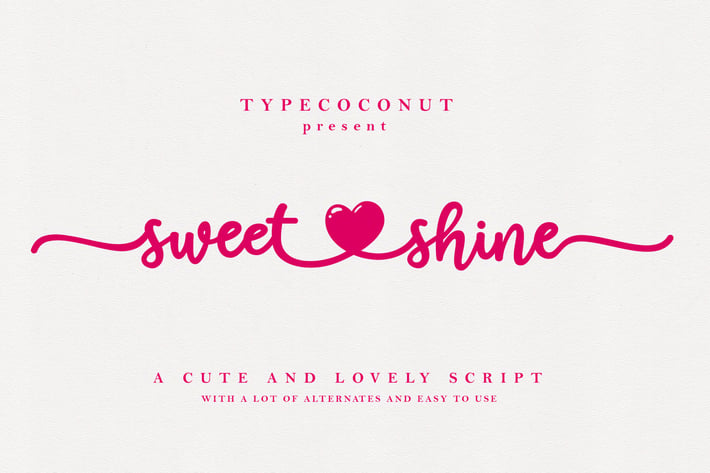
Sweet Shine Feminine Font
Sweet Shine is Beautiful Handwrittern Script. When you had a craft project, wedding project, modern clothing, or a company that need beautiful font for advertisement, this font is right for you. Sweetshine has many alternates that let you choose the best lettering composition.